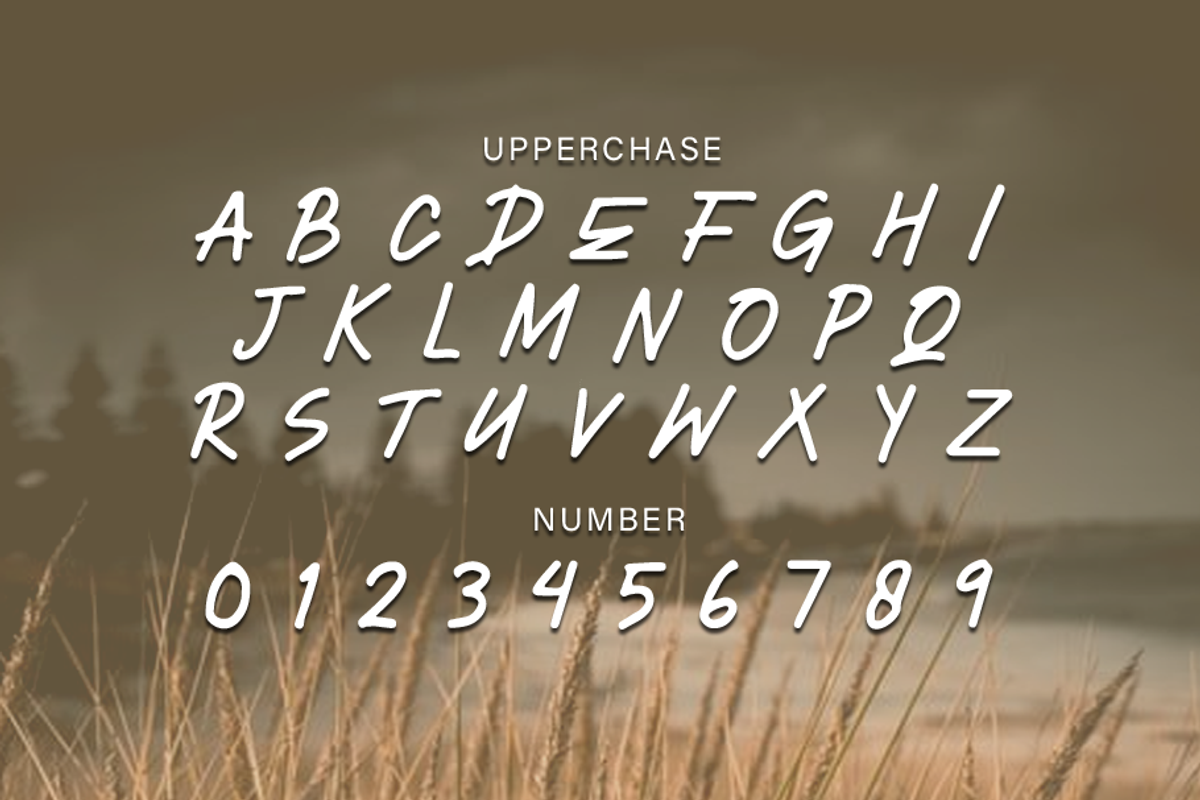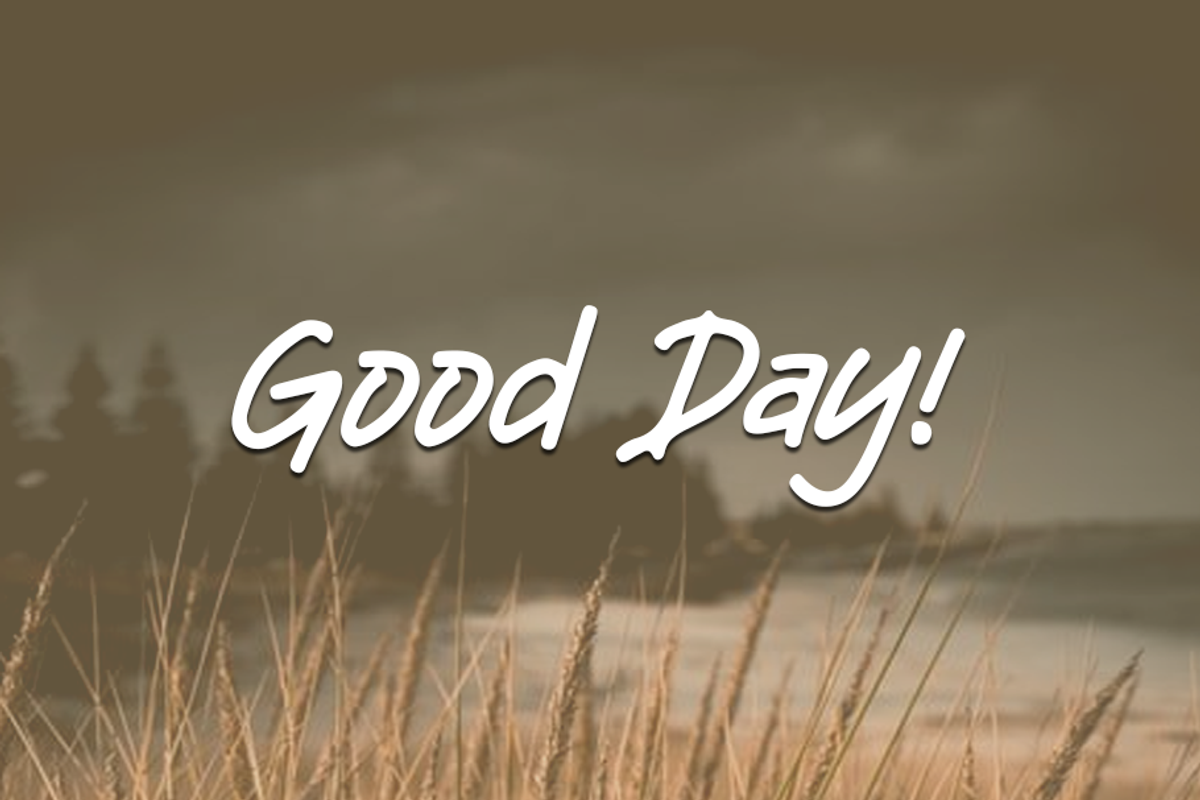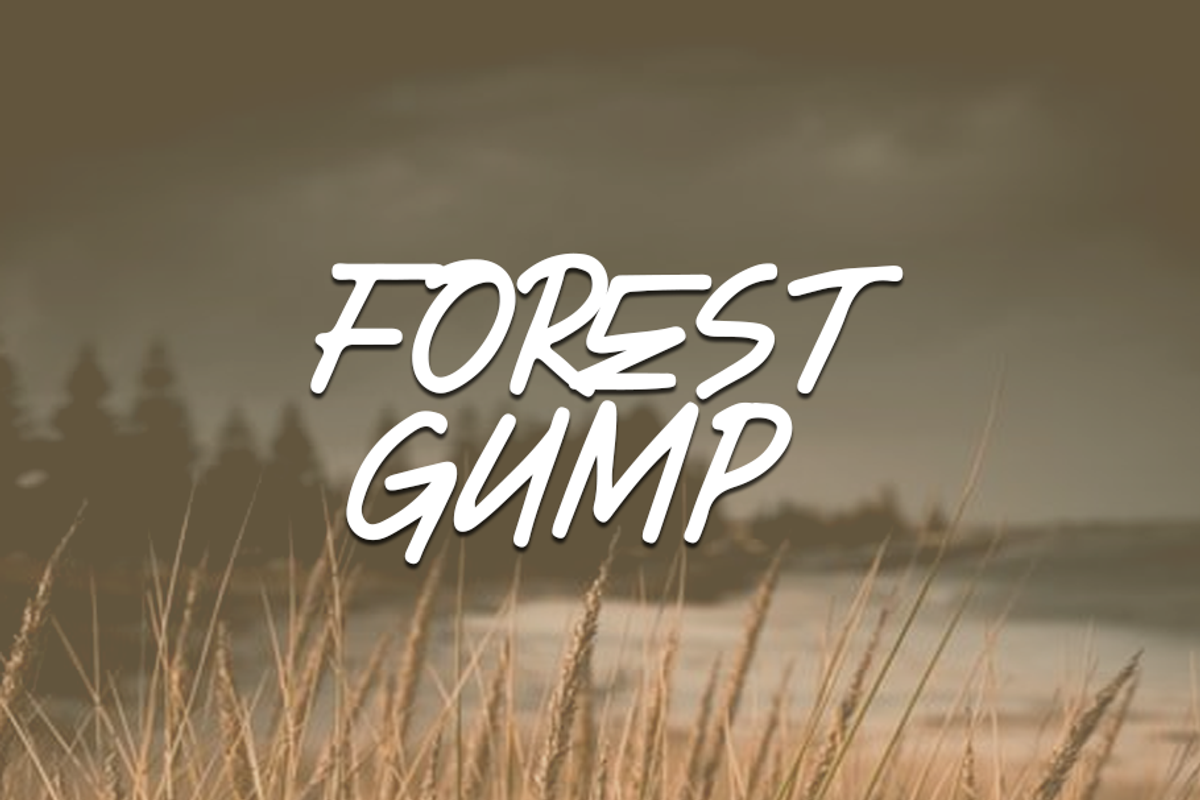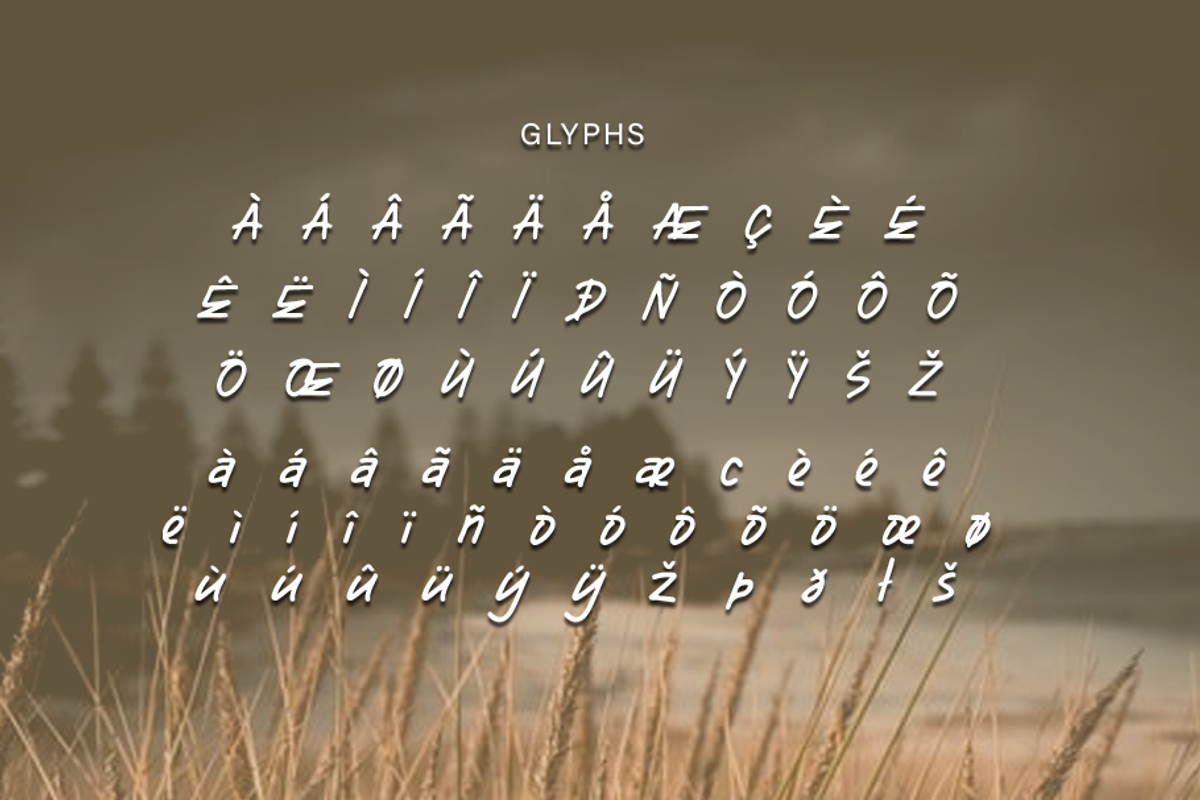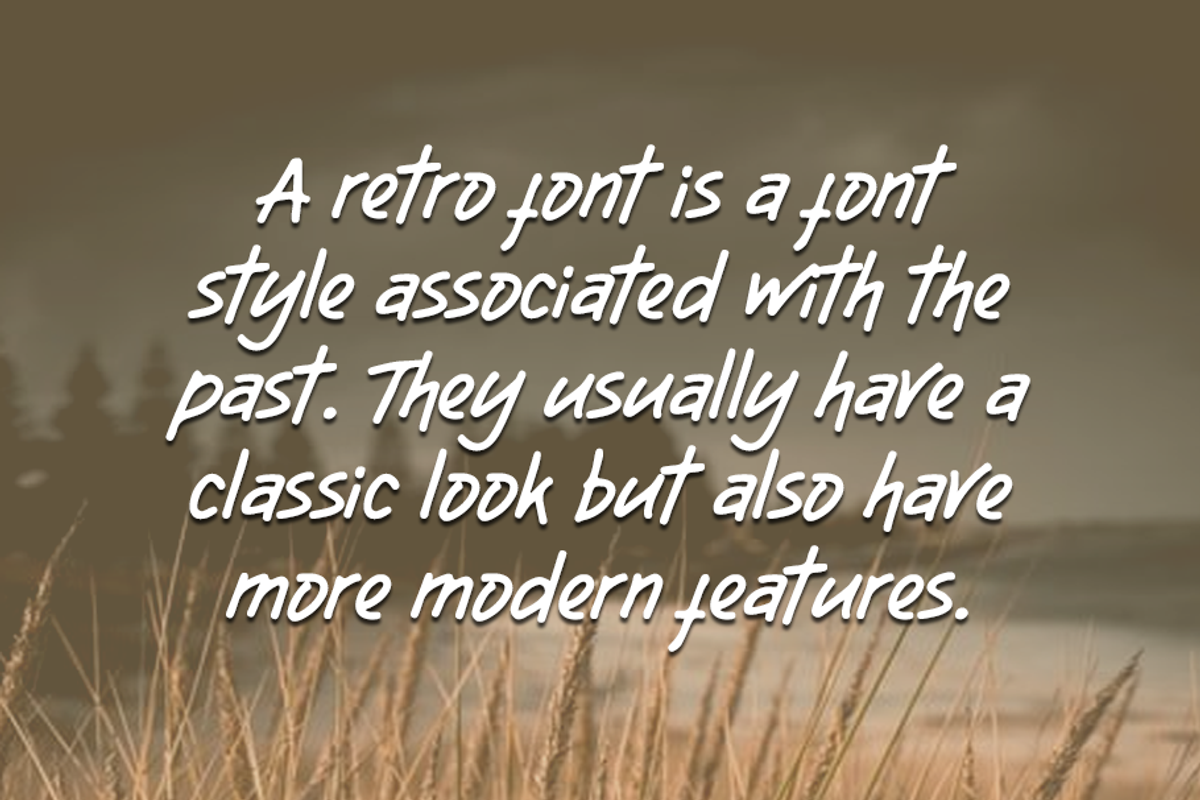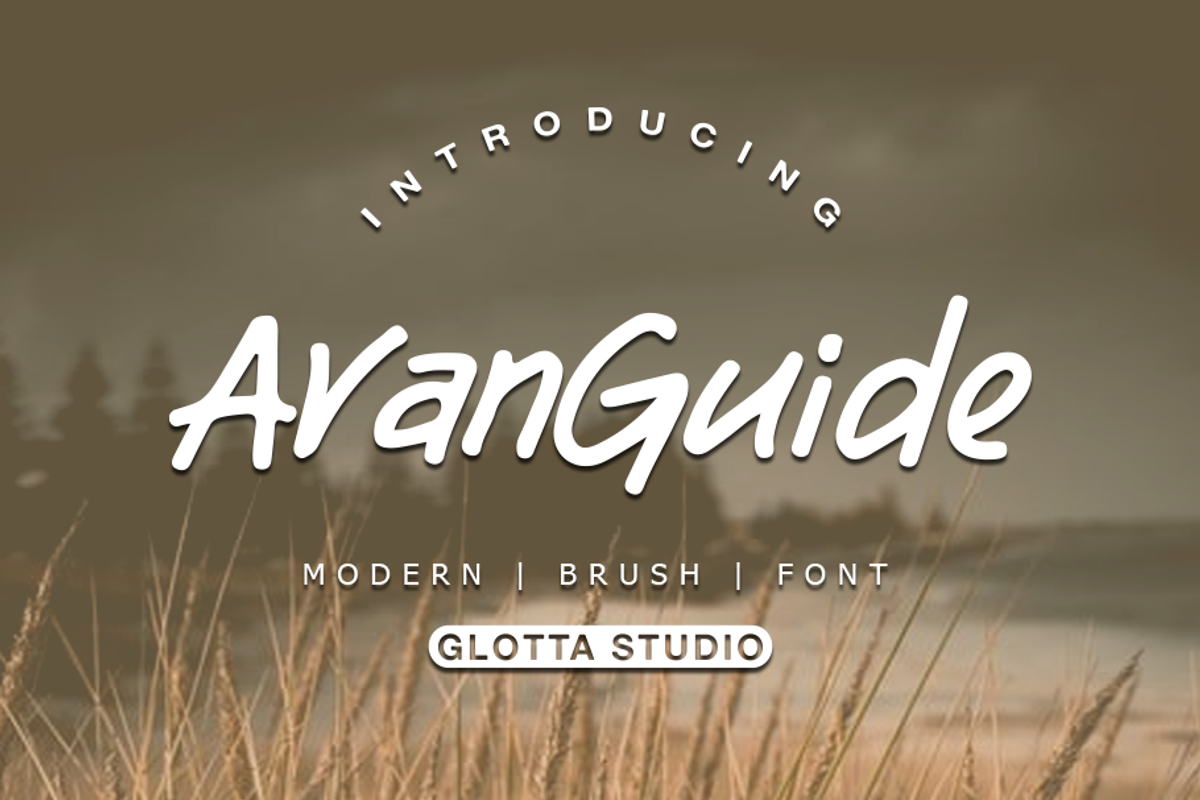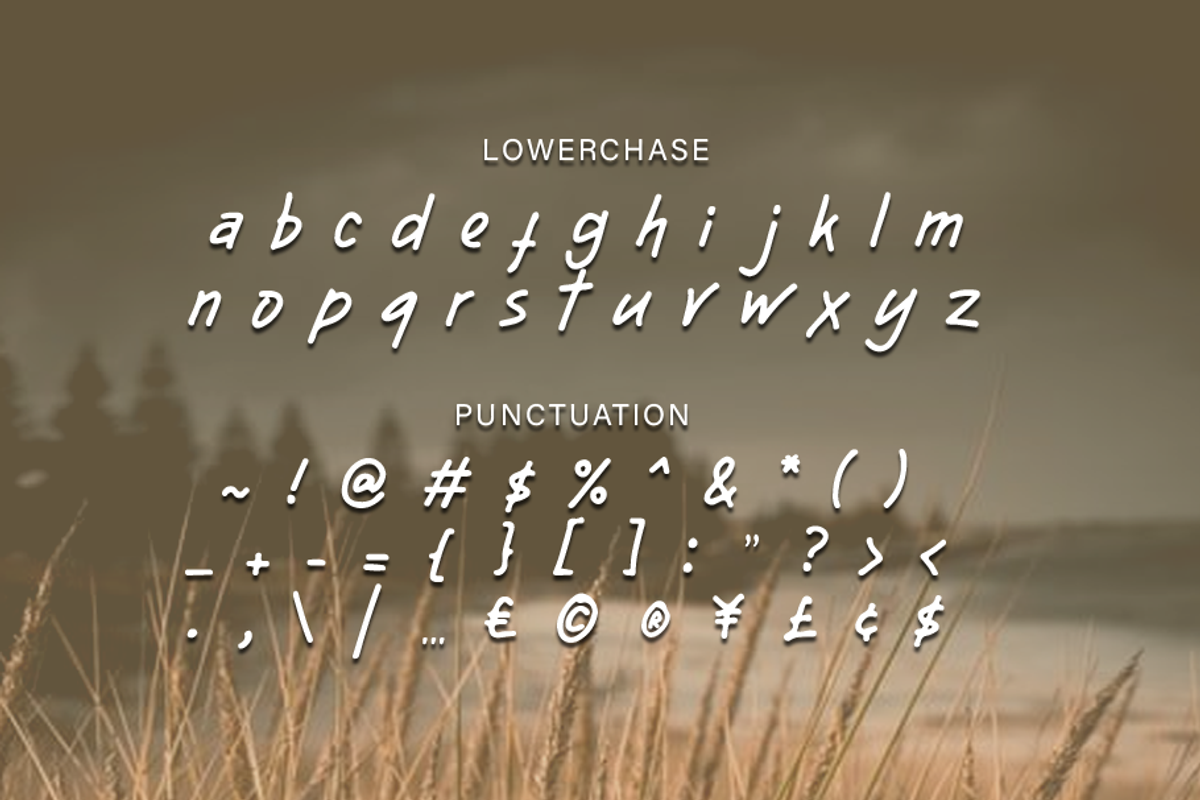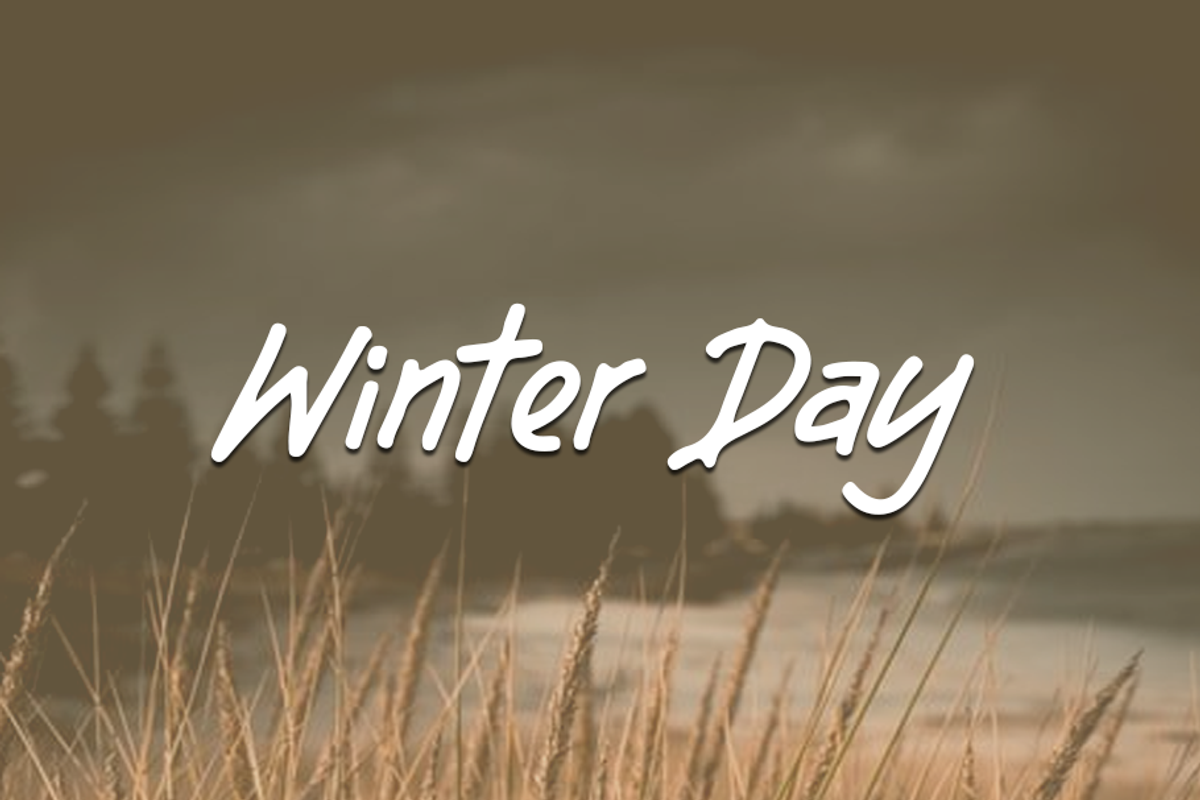
Avanguide
Avanguide is brush font it’s looks classy, vintage, old, catchy and easy to use. Avanguide is the great choice for watermark on signature, quotes, album cover, business card and many other design project. Avanguide is here to make your work or your business to high level!!! Features
- Numerals and Functional
- Alternate and ligature